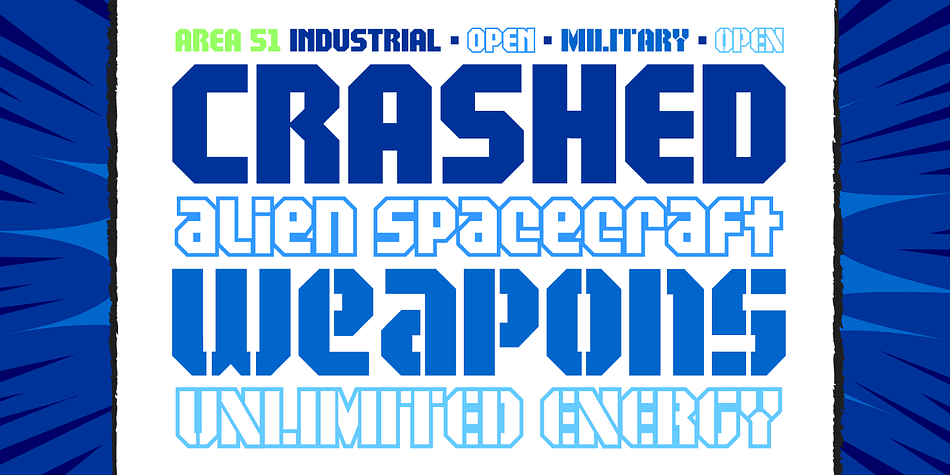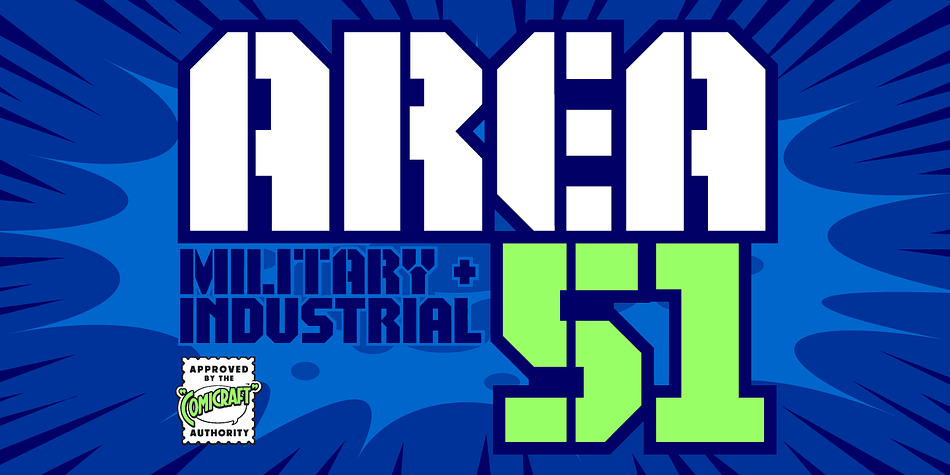
Designed by John Roshell, Area 51 is a display sans and stencil font family. This typeface has four styles and was published by Comicraft.
The characters in this font are the key players in a global conspiracy reaching down into the lives of every man, woman and child on the planet. The Information Agency known as “Active Images” has been shut down. The availability of this font is now restricted to comicbookfonts.com operatives only. Information Agents have been instructed to deny the existence of any UFO* activity in the pages of CABLE, GEAR STATION or LEGION LOST. Trust no one.